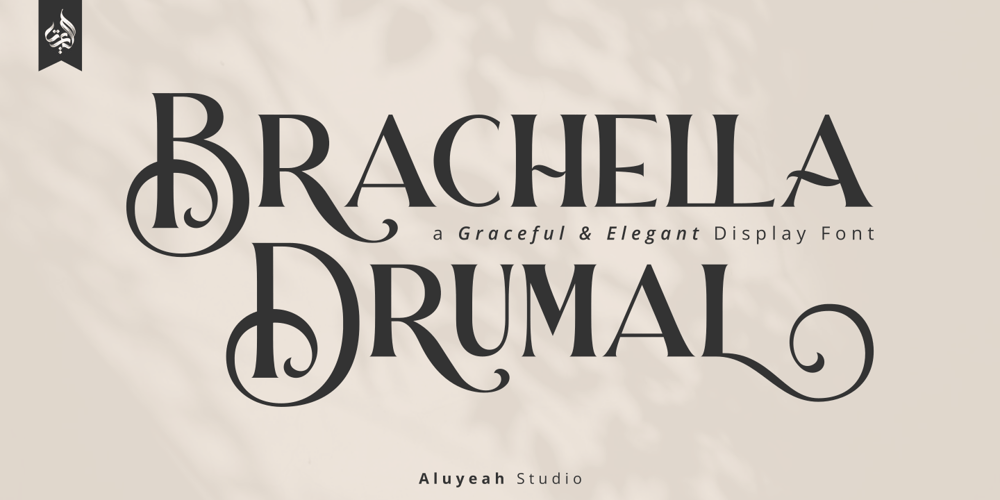
Al Brachella Drumal
Al Brachella Drumal font
Al Brachella Drumal Font Family was designed by Linggar Sundoro and published by Aluyeah Studio. Al Brachella Drumal contains 1 styles and family package options. Brachella Drumal, a Graceful and Elegant Display FontComing to you with 30+ stunning alternate and ligature to create a perfectly mystical, beautiful, classy, elegant design. Features:OpenType supportMultilingual support (15 languages)PUA EncodedSuper Easy to Use alternates – It’s OpenType support but you can easily call alternates character using special combination like A.2 B.2 k.2 etc. so you don’t need special software.To get results like the preview just type B.2r.2ach.2ella.2 D.2r.2umal.3Thanks for checking out my font. I really hope you enjoy using it!If you have any questions I’d be more than happy to answer them, just send me a message!